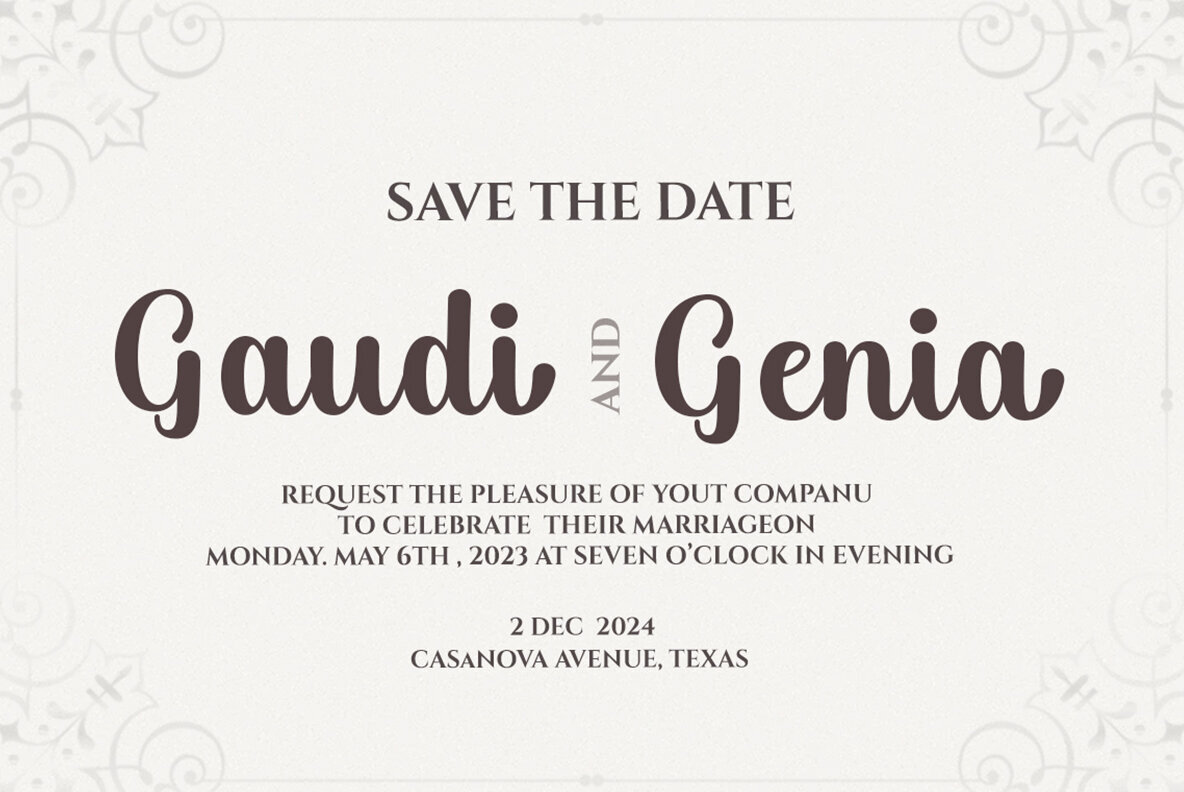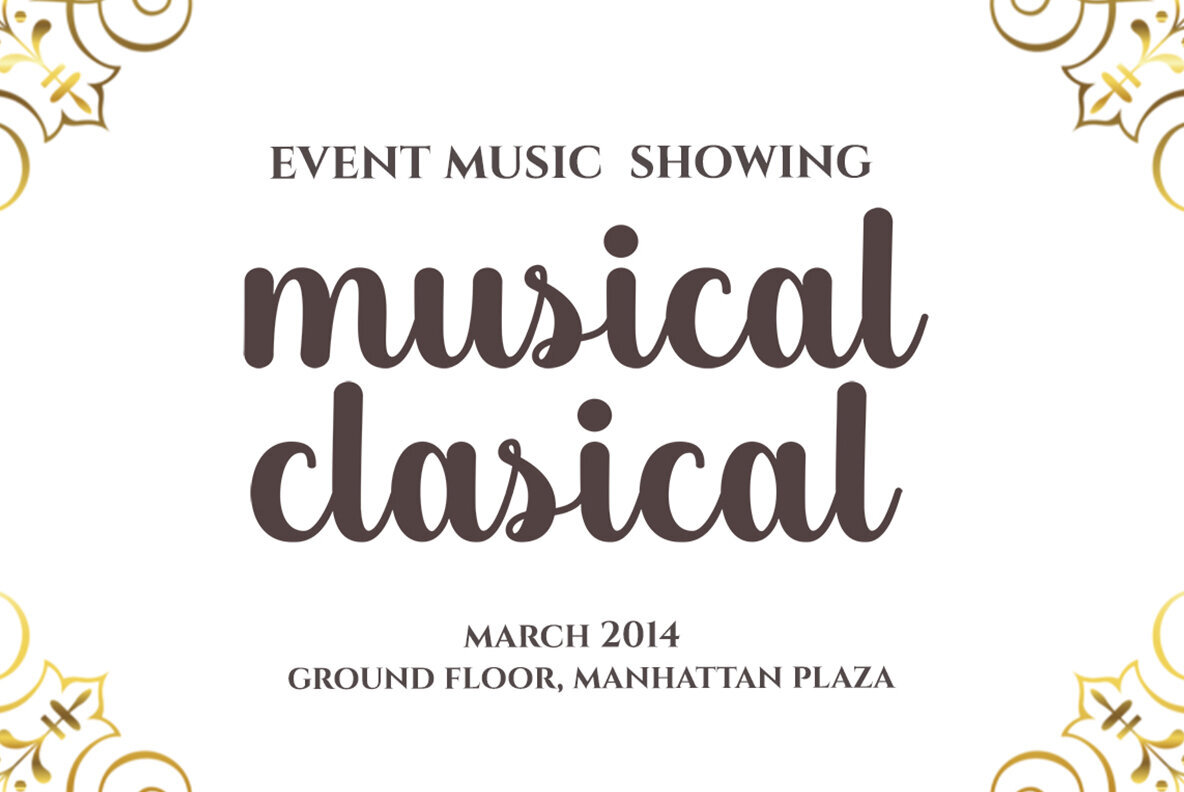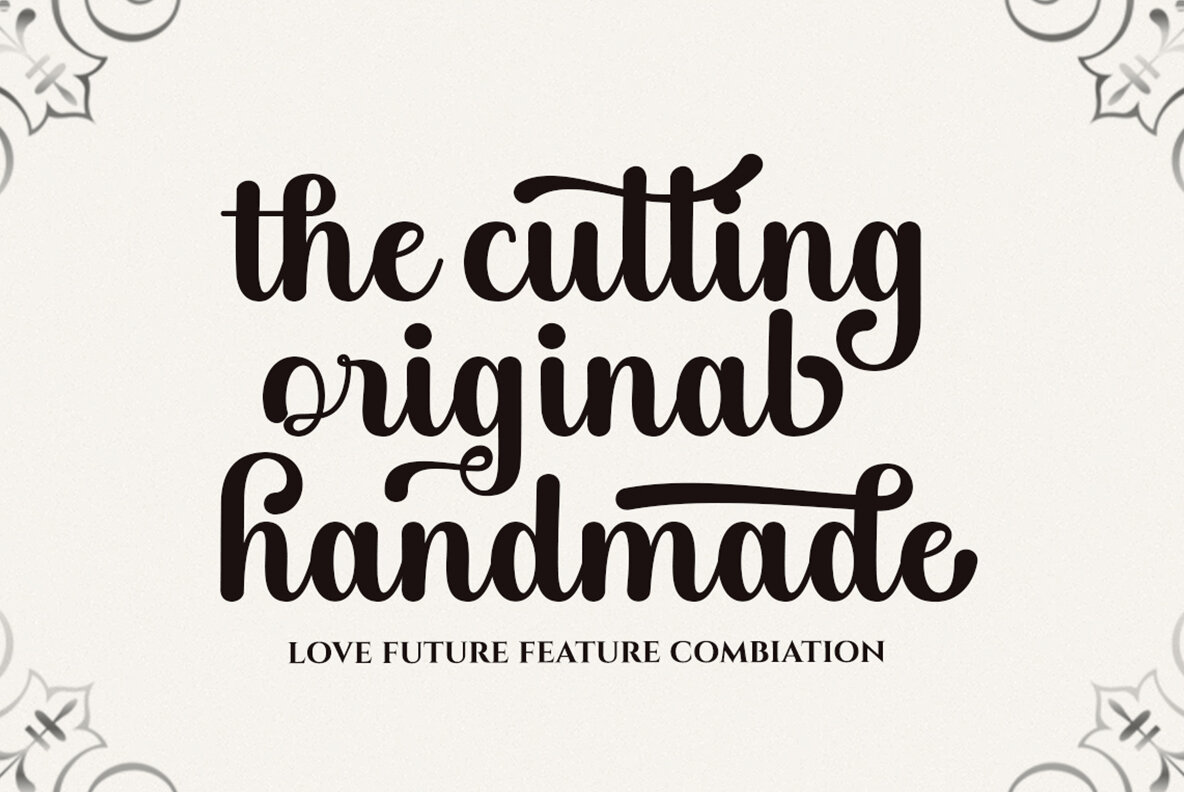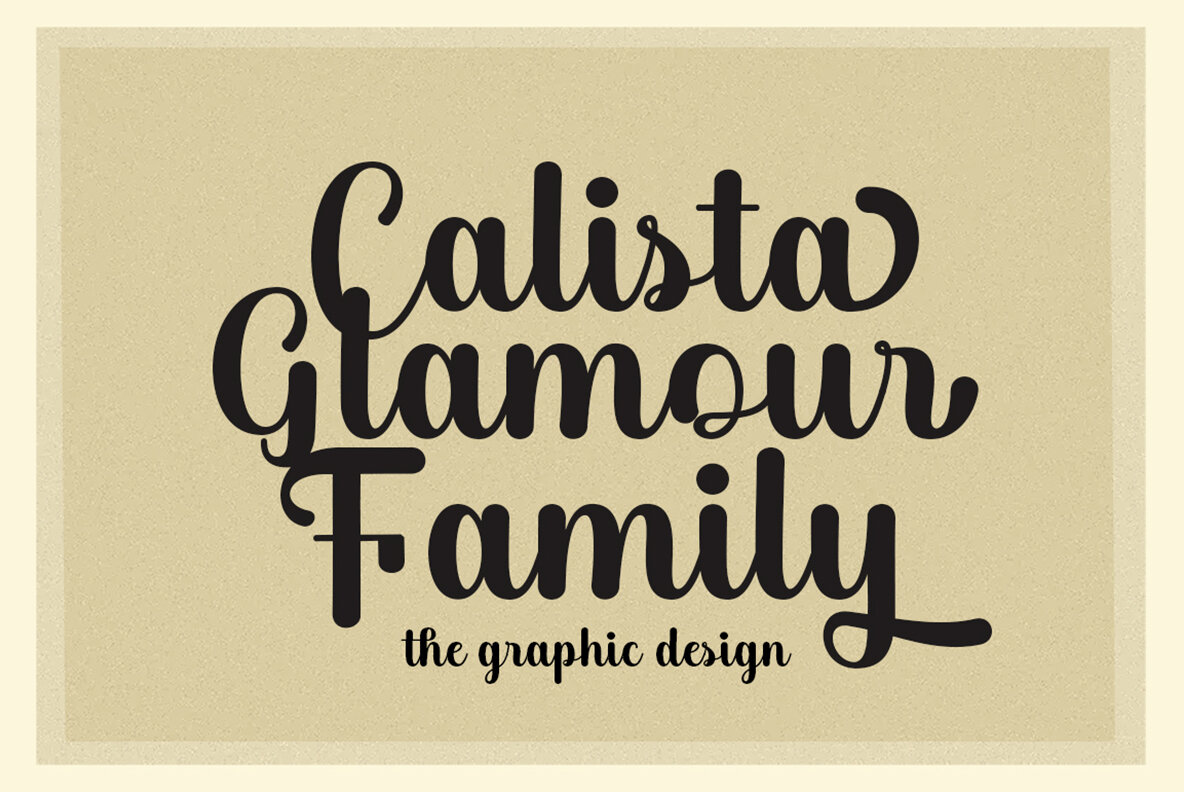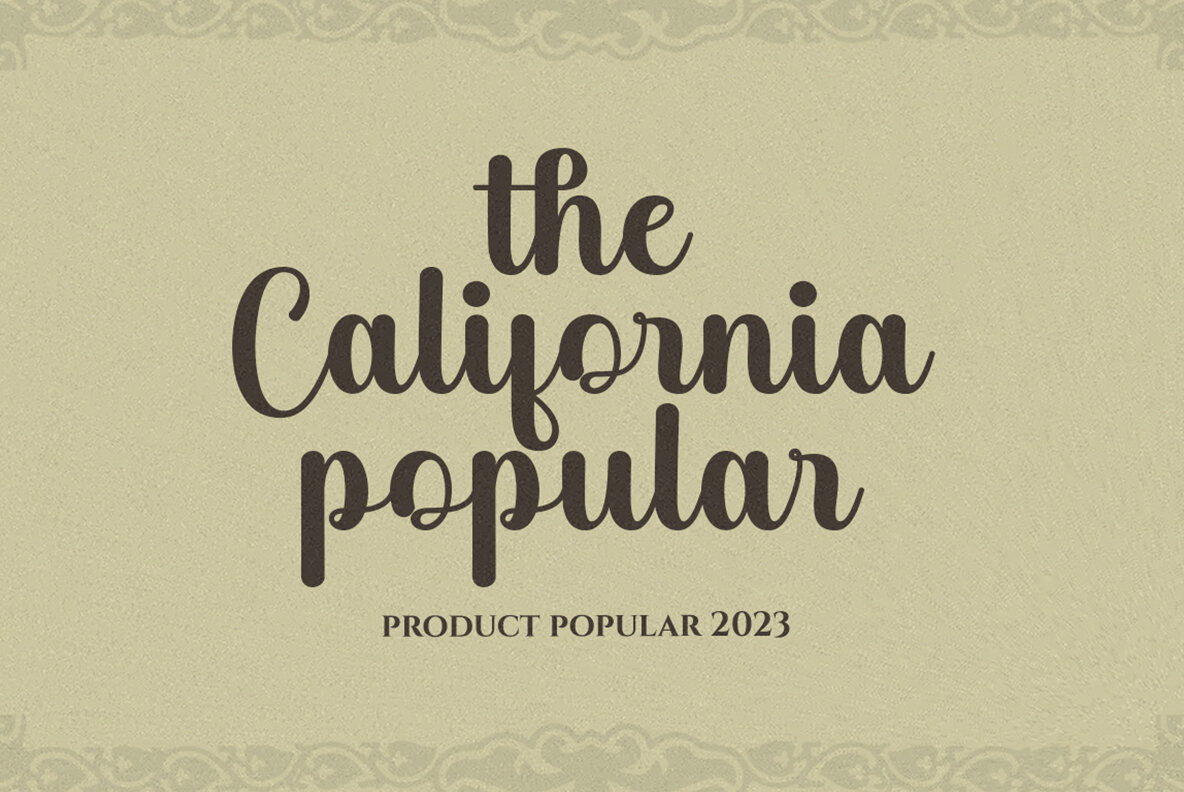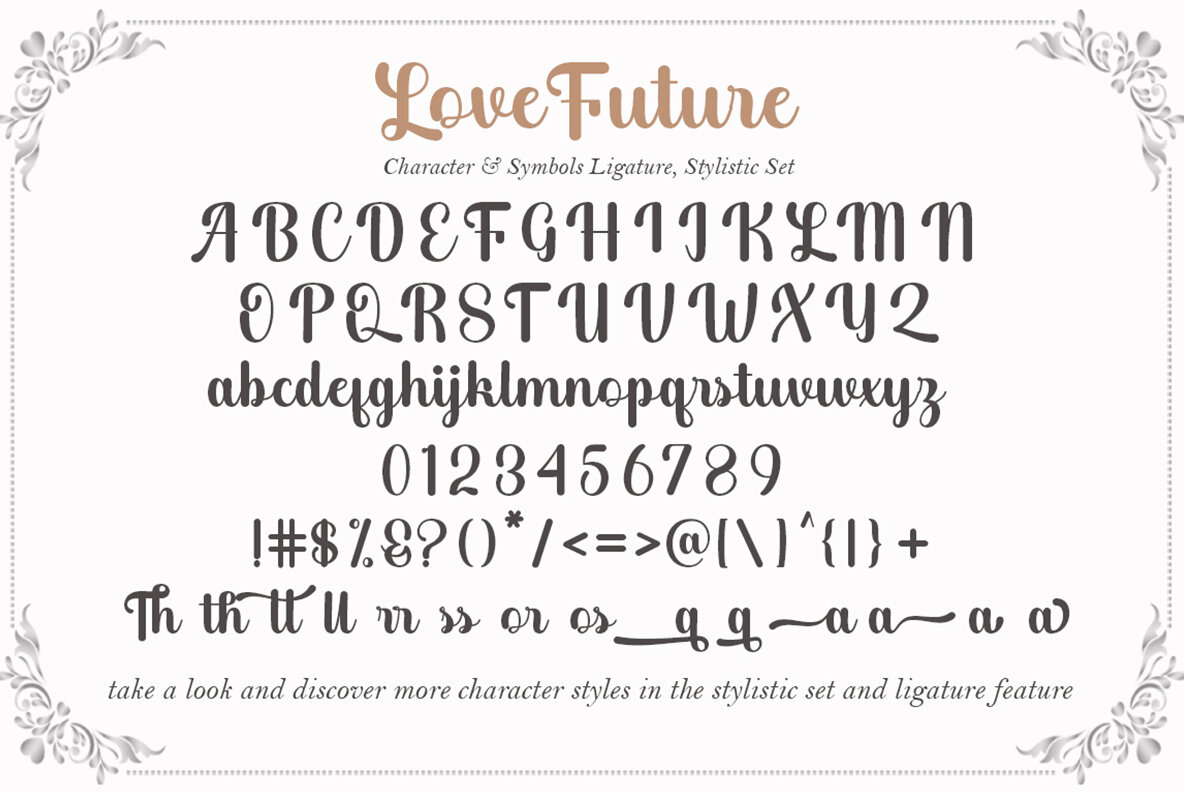
Love Future Font
Love Future
Love Future is a bold script font that brings together elegance, simplicity, and a touch of vintage style. Perfect for a wide range of design needs, it features OpenType capabilities like ligatures, stylistic sets, and alternative endings. Moreover, it supports multiple languages, enhancing its versatility in global projects. Love Future is ideal for creating visually appealing designs such as posters, magazines, logos, branding projects, and packaging. Its bold style adds a striking element to any project, whether digital or print. This font is accessible in programs that support OpenType features like Adobe Illustrator CS, Adobe Photoshop CC, Adobe InDesign, and CorelDraw X6-X7, along with Microsoft Word 2010 or later versions. Encoded with PUAs, Love Future is compatible with platforms like Silhouette Studio and Cricut Design Space. Accessing alternate characters is easy using tools such as Character Map (Windows), Nexus Font (Windows), Font Book (Mac), or PopChar (for both Windows and Mac).Love Future: A Bold, Elegant Script Font